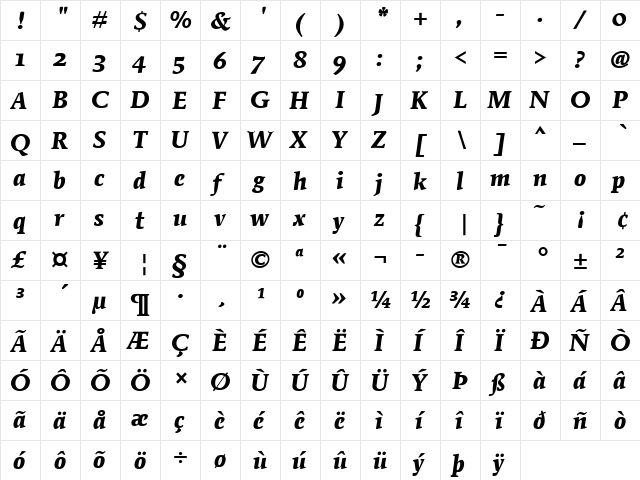
Mendoza Roman ITC Roman Bold Italic
Roman Bold Italic · by URW  ·
Design Context for Mendoza Roman ITC Typeface
Mendoza Roman ITC offers clean, dependable letterforms without strong stylistic allegiance, making it a practical choice for designers who need flexibility. Its italic angle brings a sense of urgency and motion to the letterforms. The heavy weight commands attention and anchors typographic hierarchies.
Pro Tip: Use Mendoza Roman ITC for emphasis, pull quotes, and subheadings where its slanted energy can add rhythm to the layout.